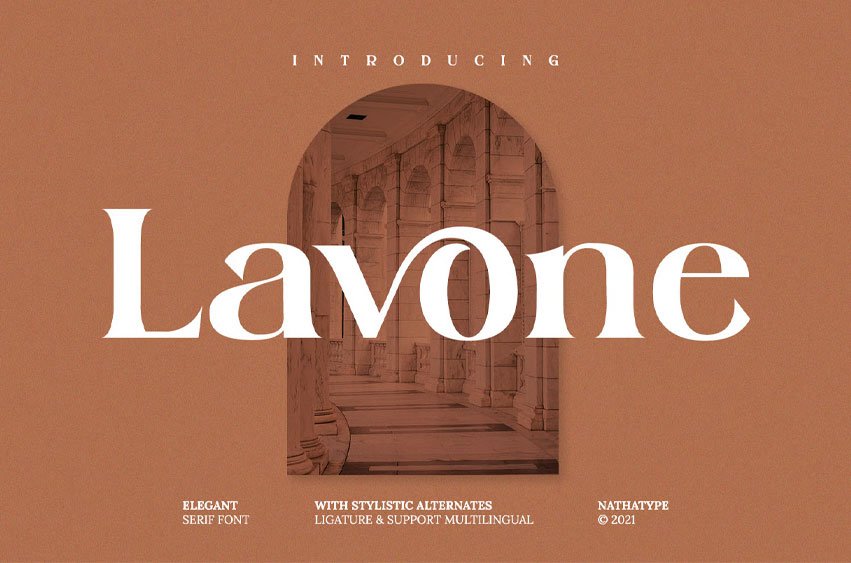
Lavone Font Ready to enhance your branding? Looking for that “something” that’ll make your audience go WOW and clients get on board immediately? Maybe you’re looking for the perfect font to use on your wedding invitations or branding? Whatever you need – we’ve got JUST the thing for you!
Lavone-A Serif Font
Lavone is a elegant serif typeface. Designed primarily as a captivating handcrafted with style. This typeface that is easy on the eyes font that excels at captivating headlines, or large branding text, the font oozes that cute aesthetic that just makes you go “aww!”
Our font always includes Multilingual Support to make your branding reach a global audience.
- Alternates
- Stylistic Sets
- Swashes
- Numerals and Punctuation